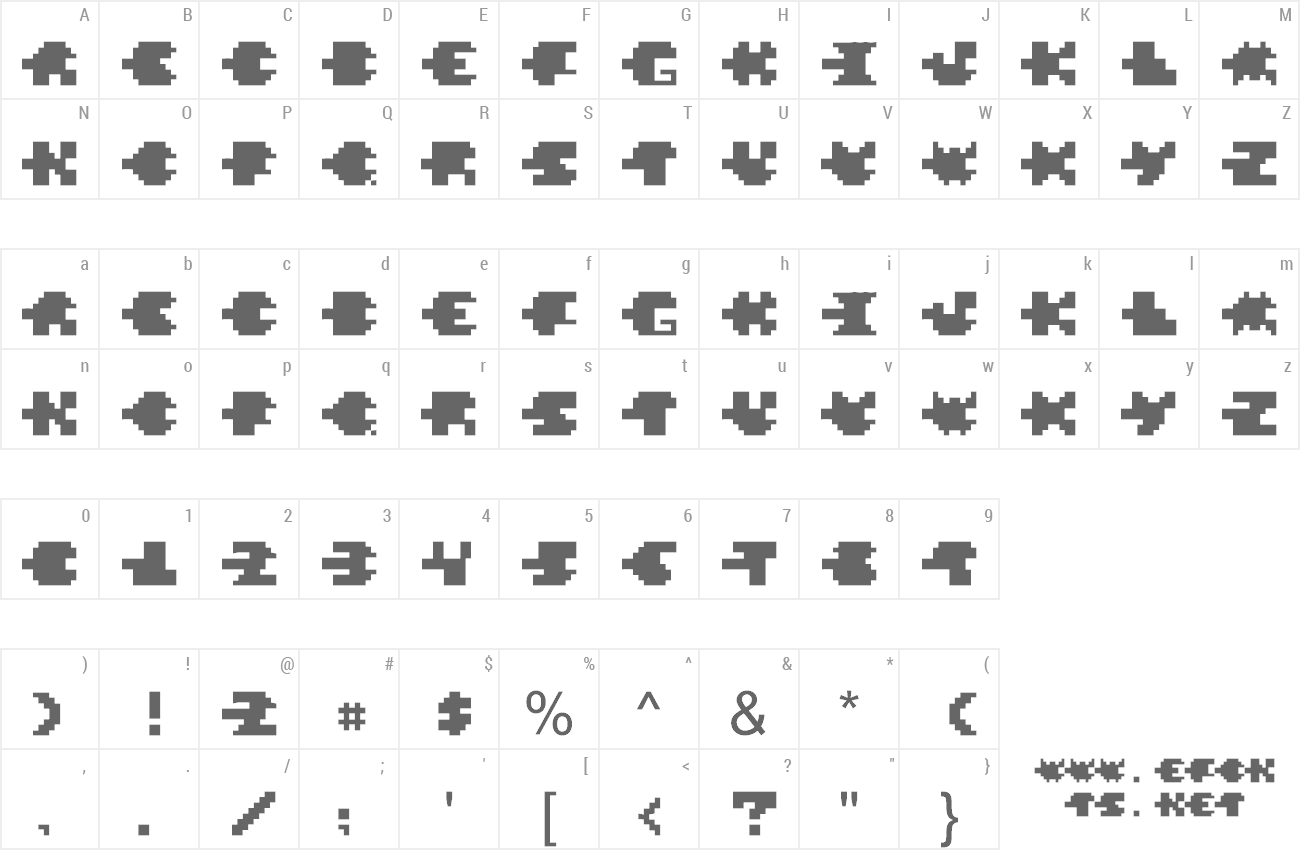
Preview and download Pixel Verde Font. Created by Salvador Rodríguez in Techno Various styles
| Font name: | Pixel Verde |
| Author: | Salvador Rodríguez |
| Note by Salvador Rodríguez | |
This is a funny and pixeled experimental font, useful for vintage style. Have fun creating textures and titles. |